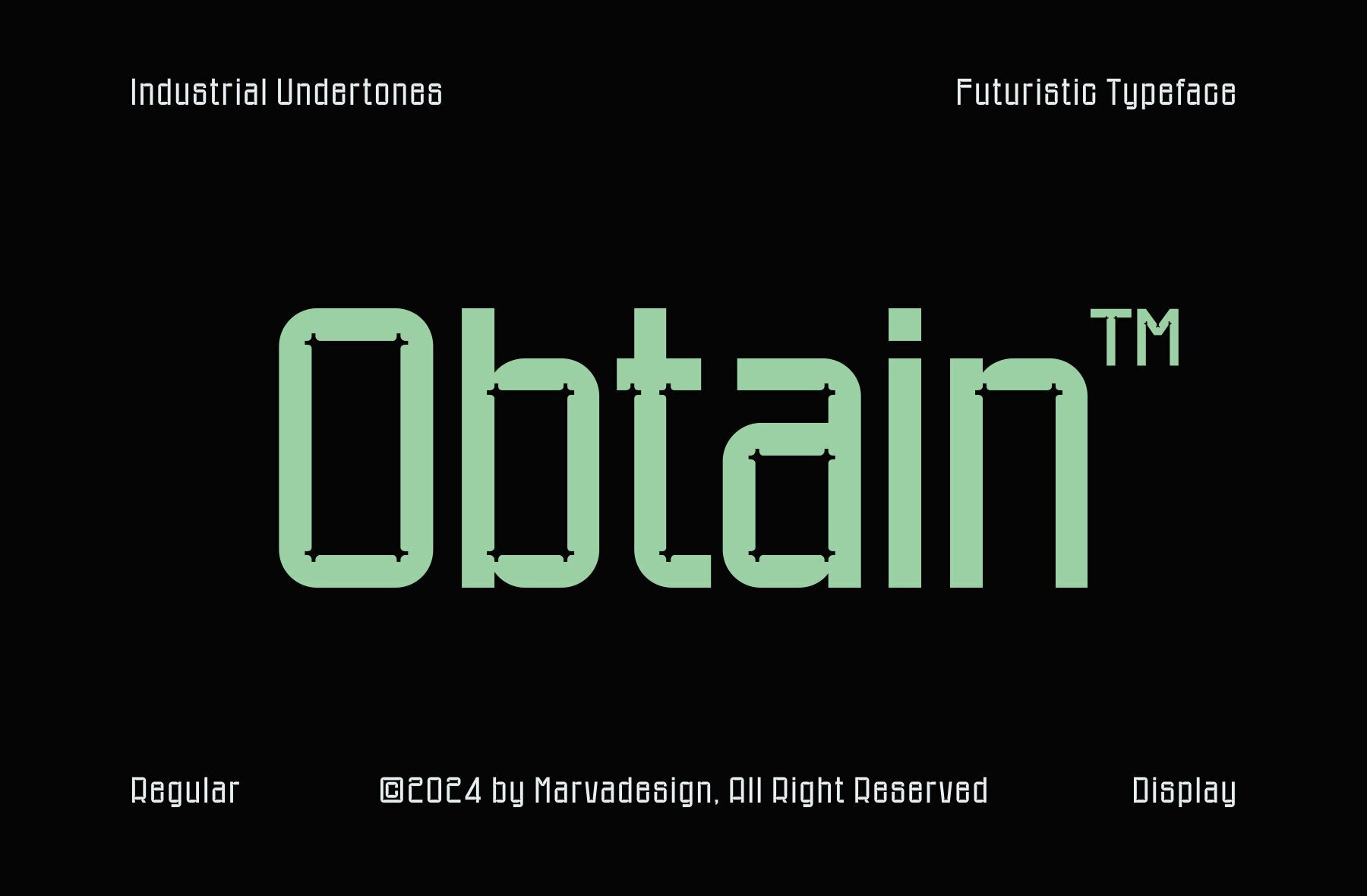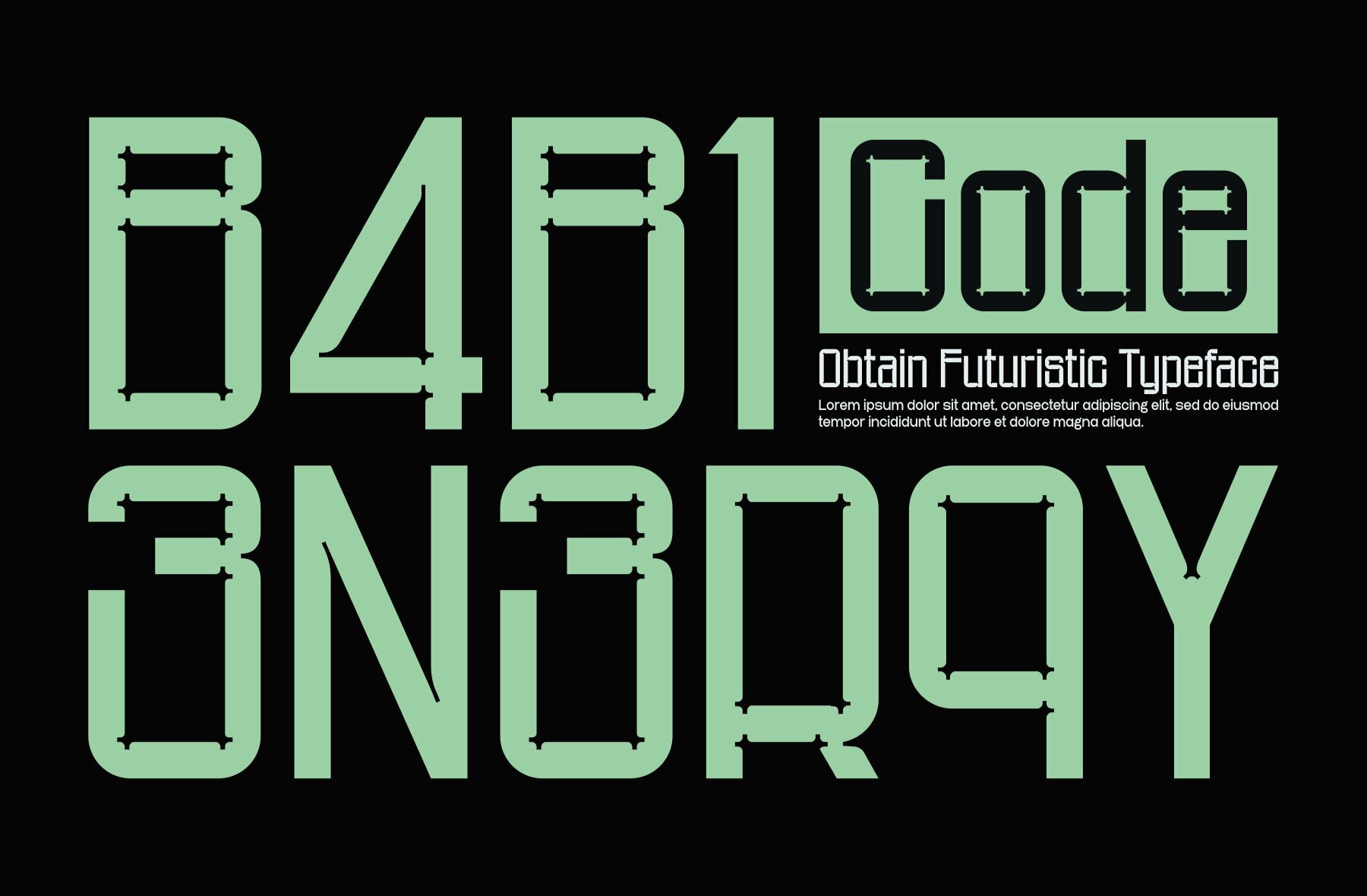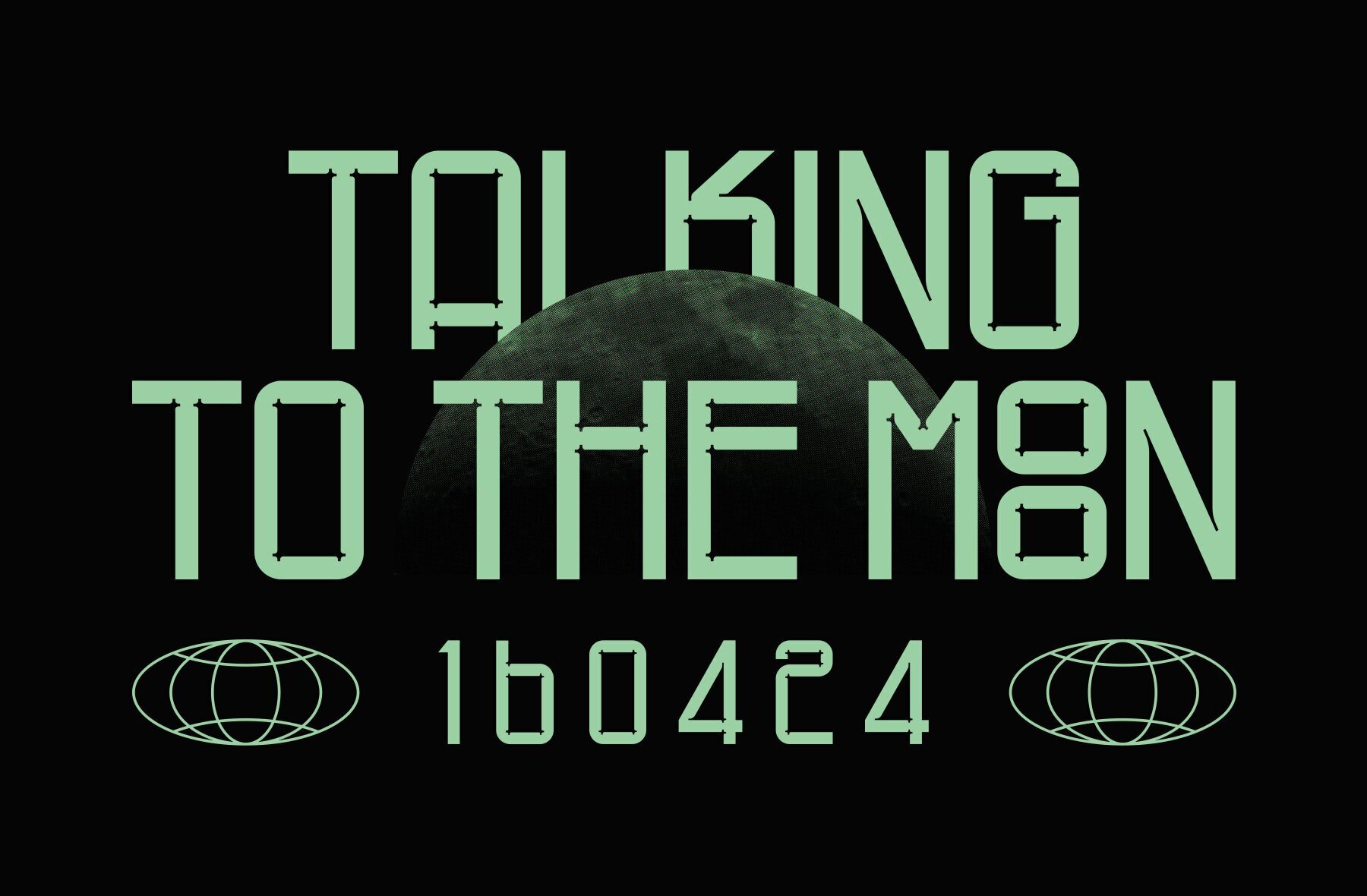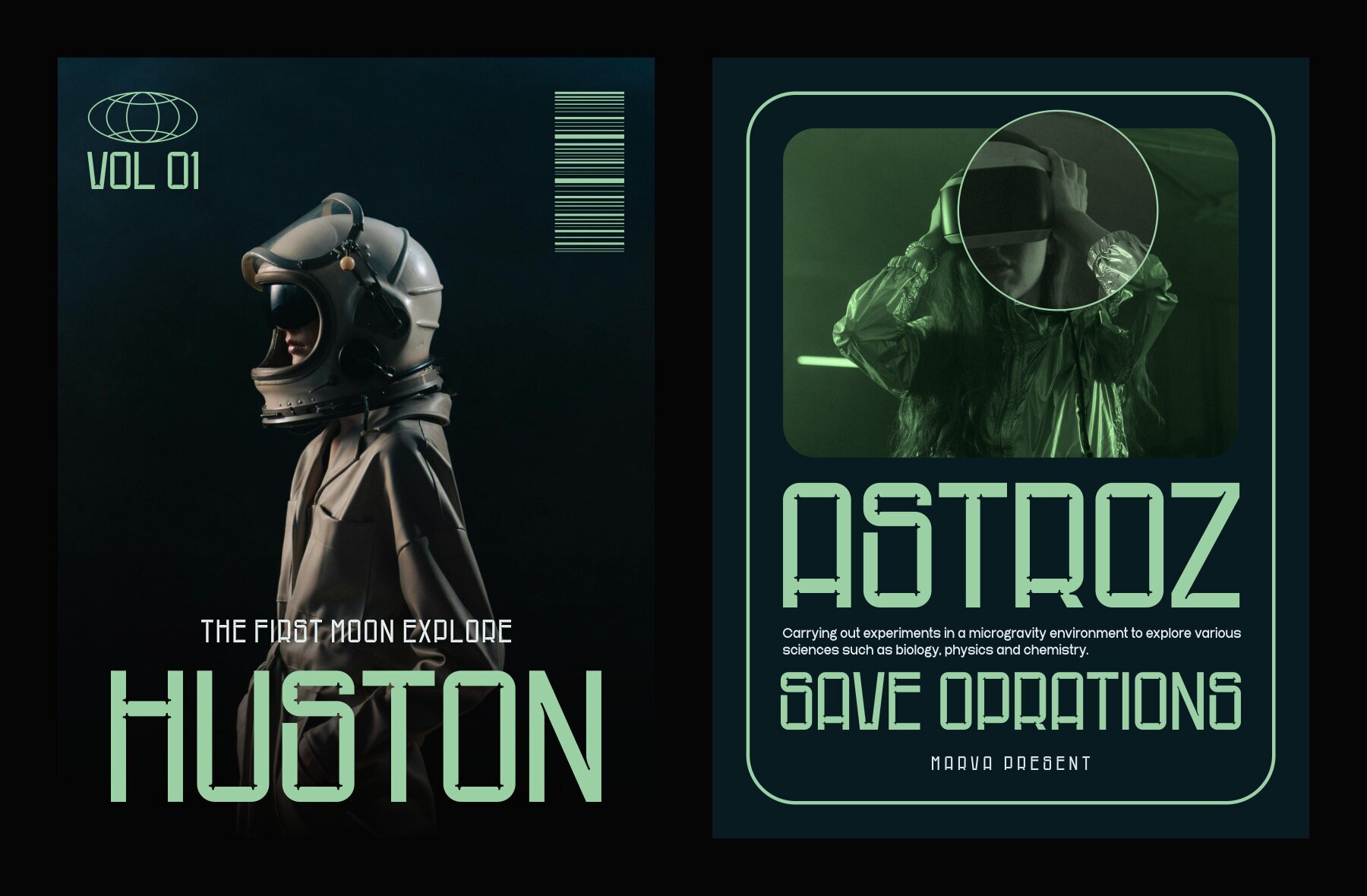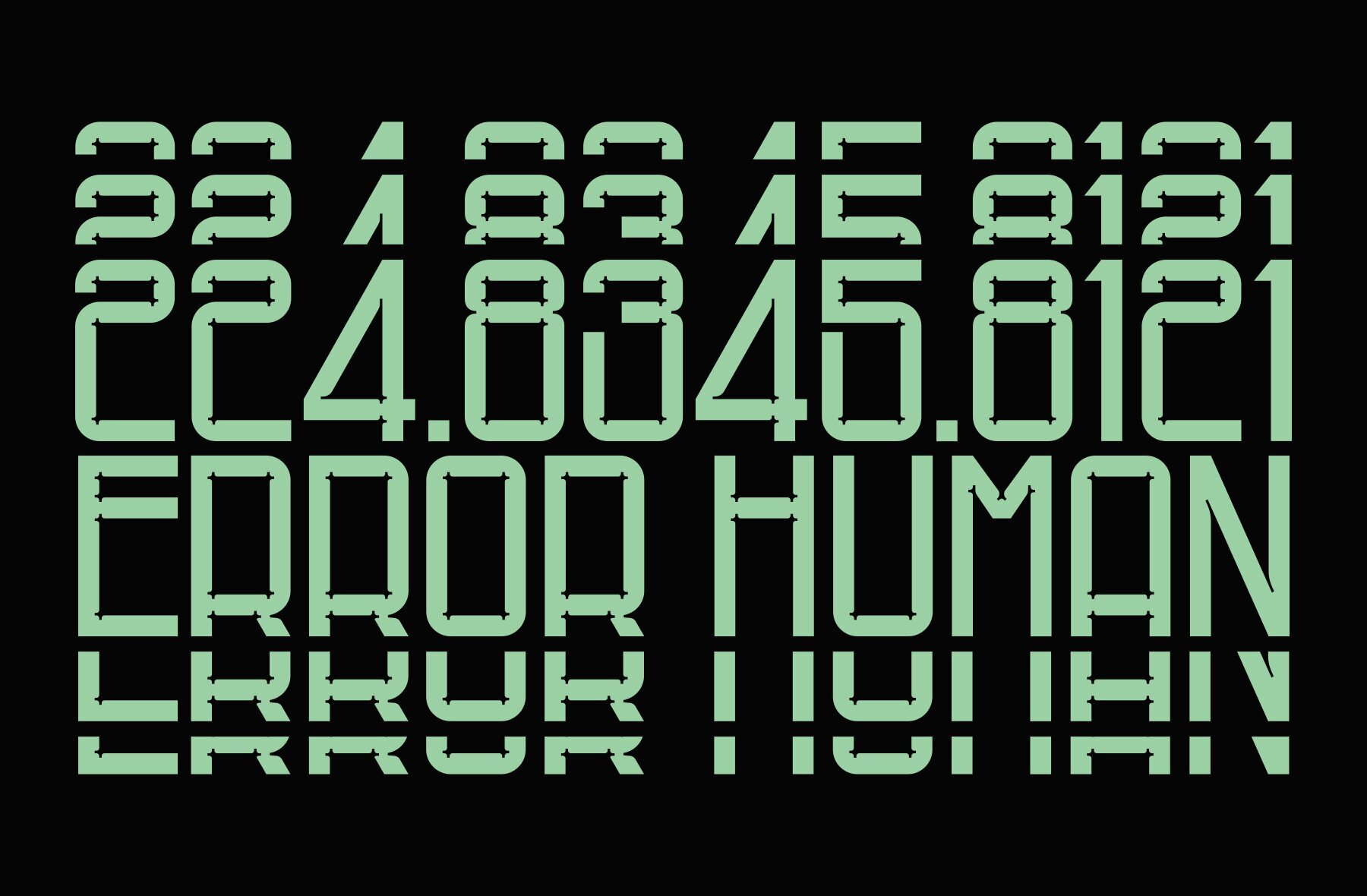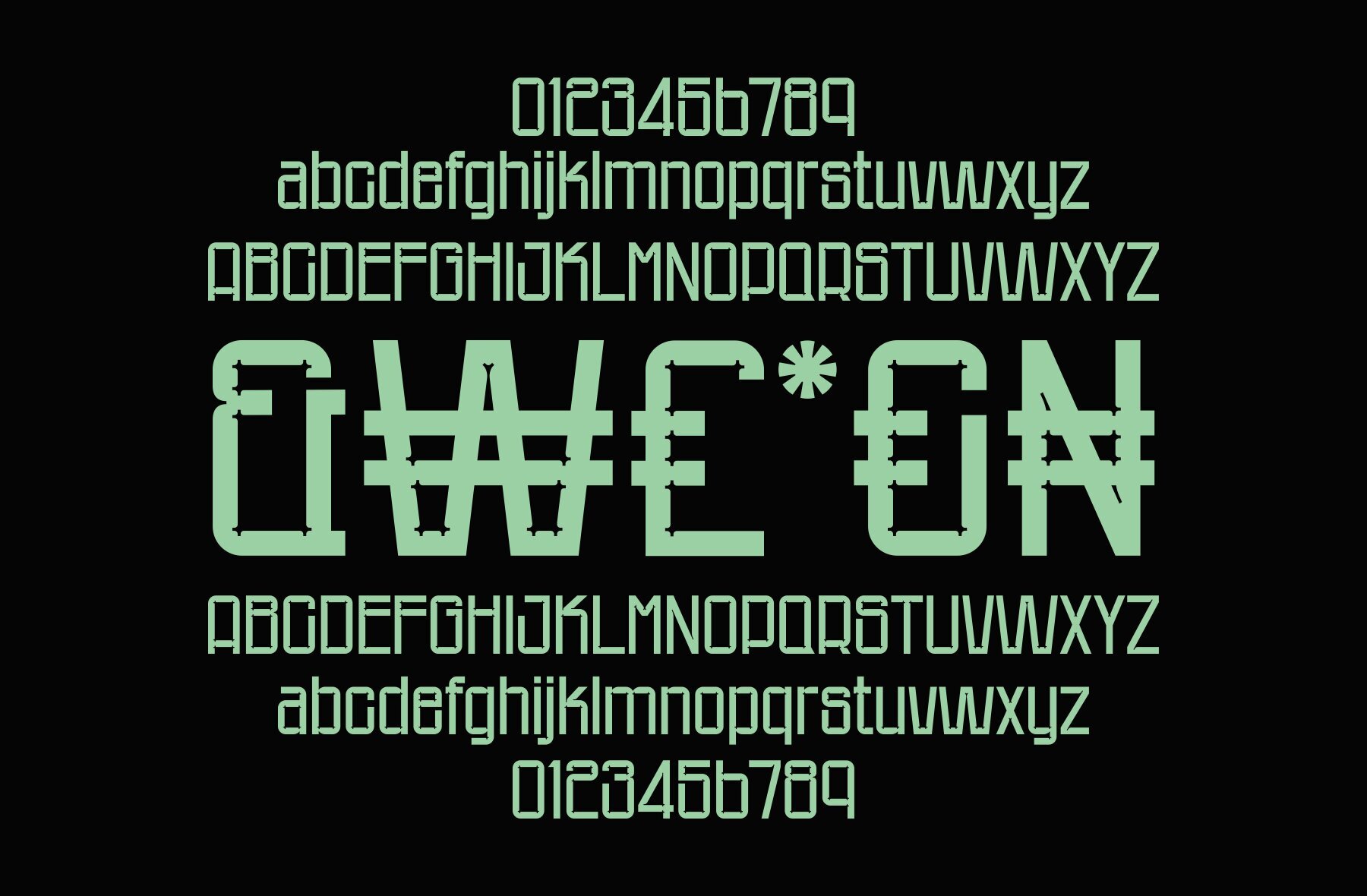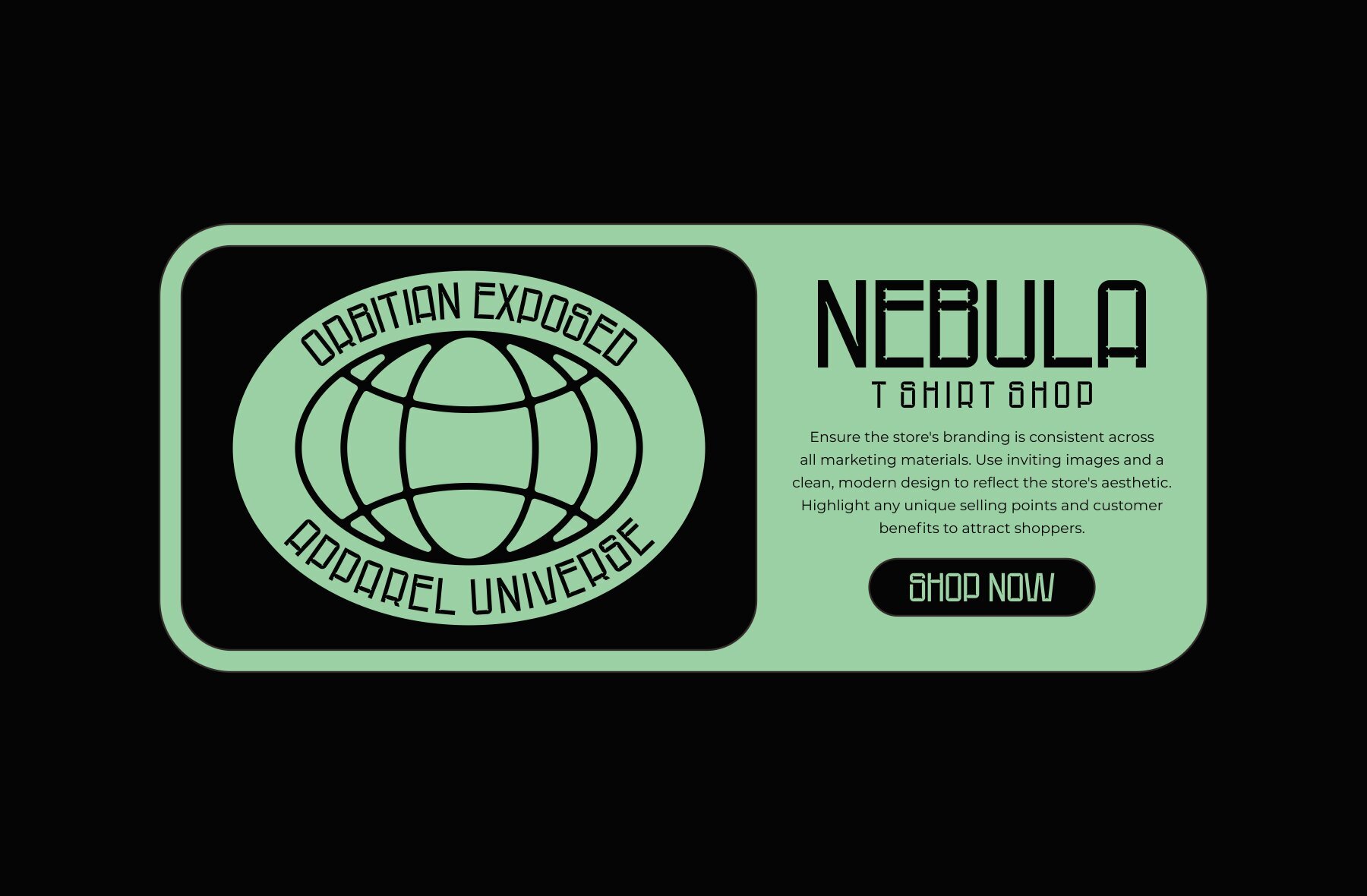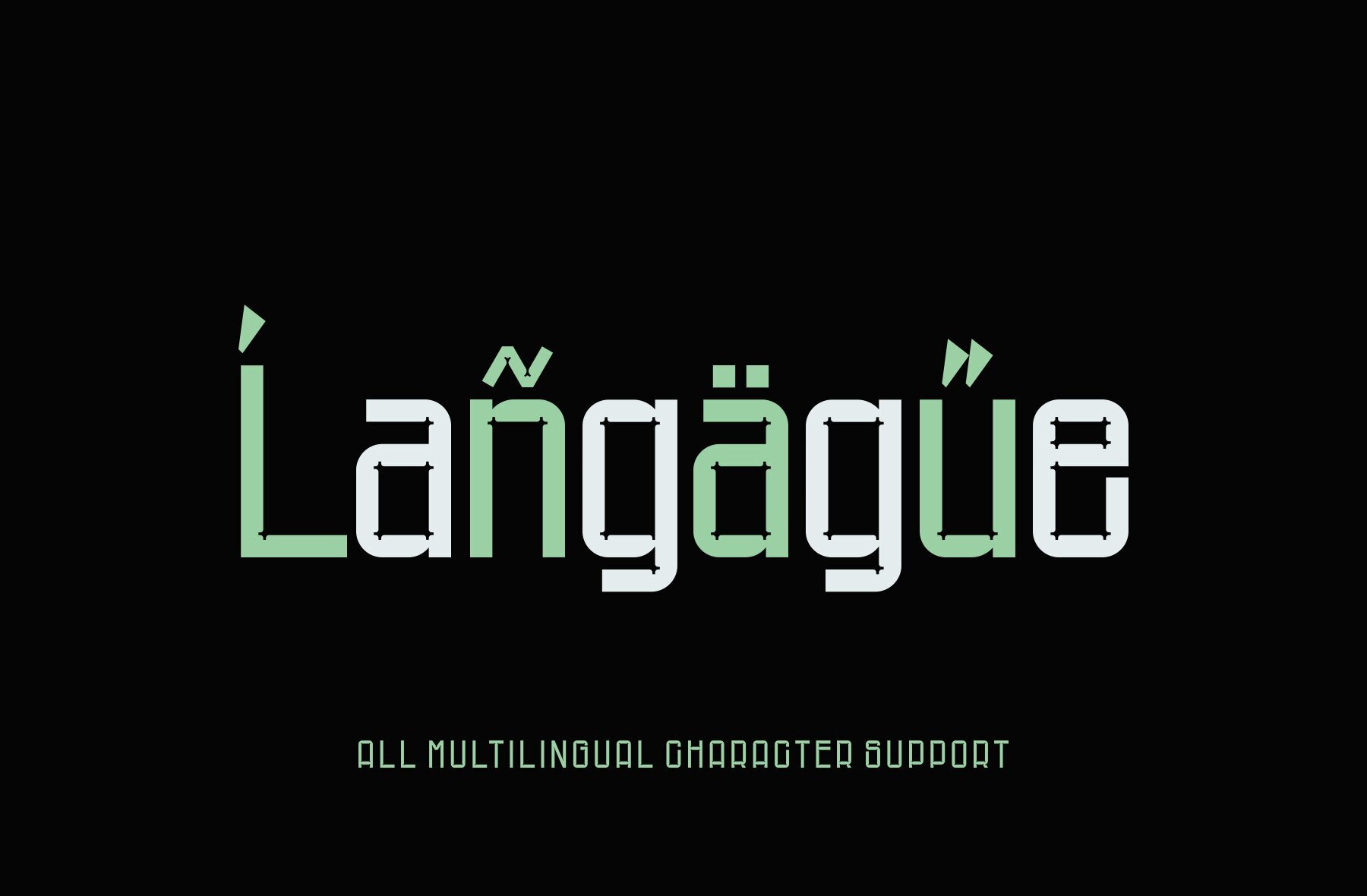
Obtain Font
Obtain Regular
Obtain is a sleek and modern sans serif font that embodies minimalism with a touch of futuristic elegance. Designed for a clean and sharp appearance, it ensures readability and style. The condensed letterforms allow for more text to fit in limited spaces, making it ideal for headlines, posters, and tight layouts. Its contemporary lines and geometric shapes are perfect for tech-related content, branding, and innovative design projects. Features: Each corner of the letterforms in Obtain features unique, subtle symbols that add extra detail and distinction. These symbols are carefully integrated into the design, ensuring they complement the overall aesthetic, providing a sense of uniqueness and creativity.